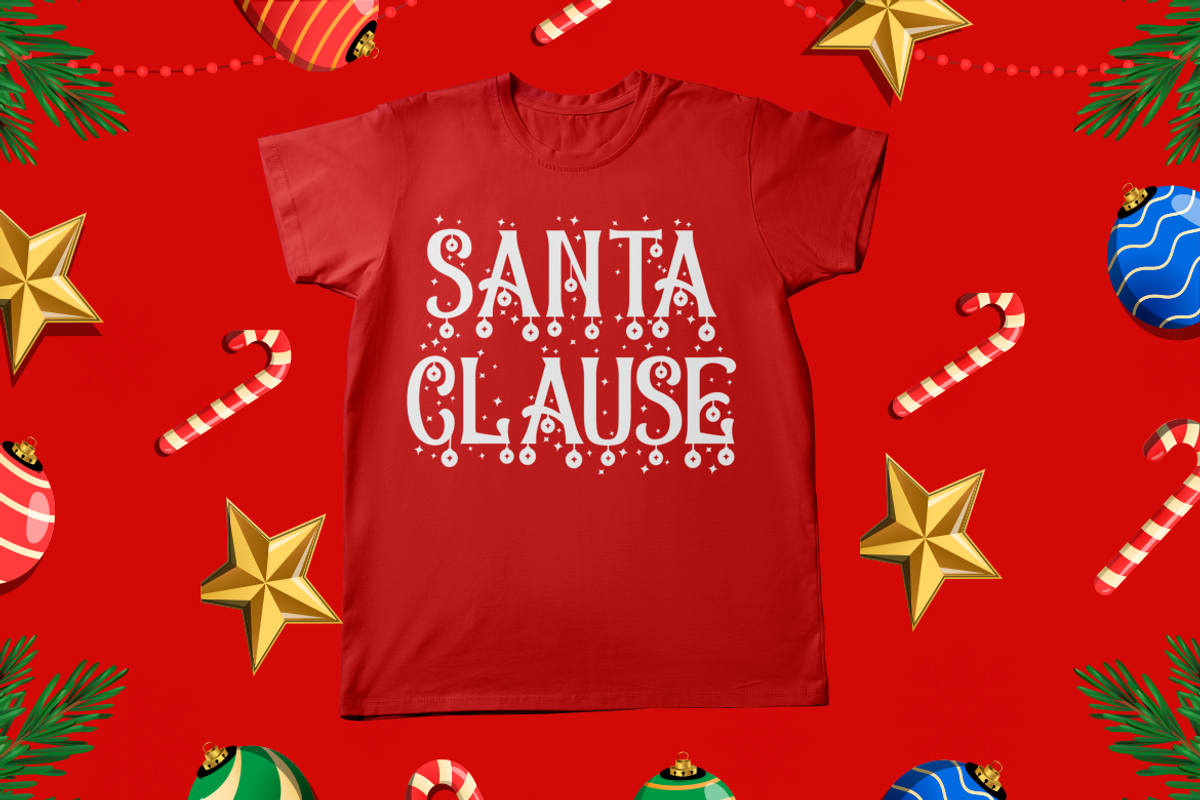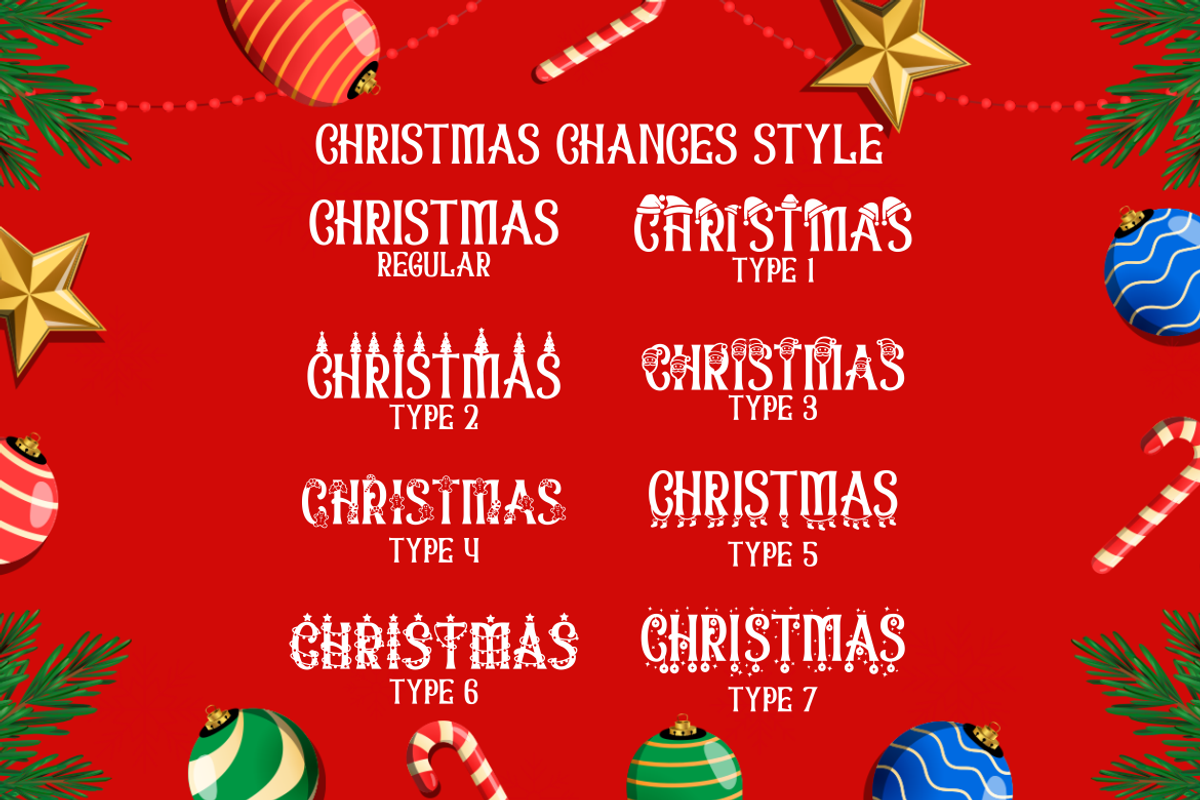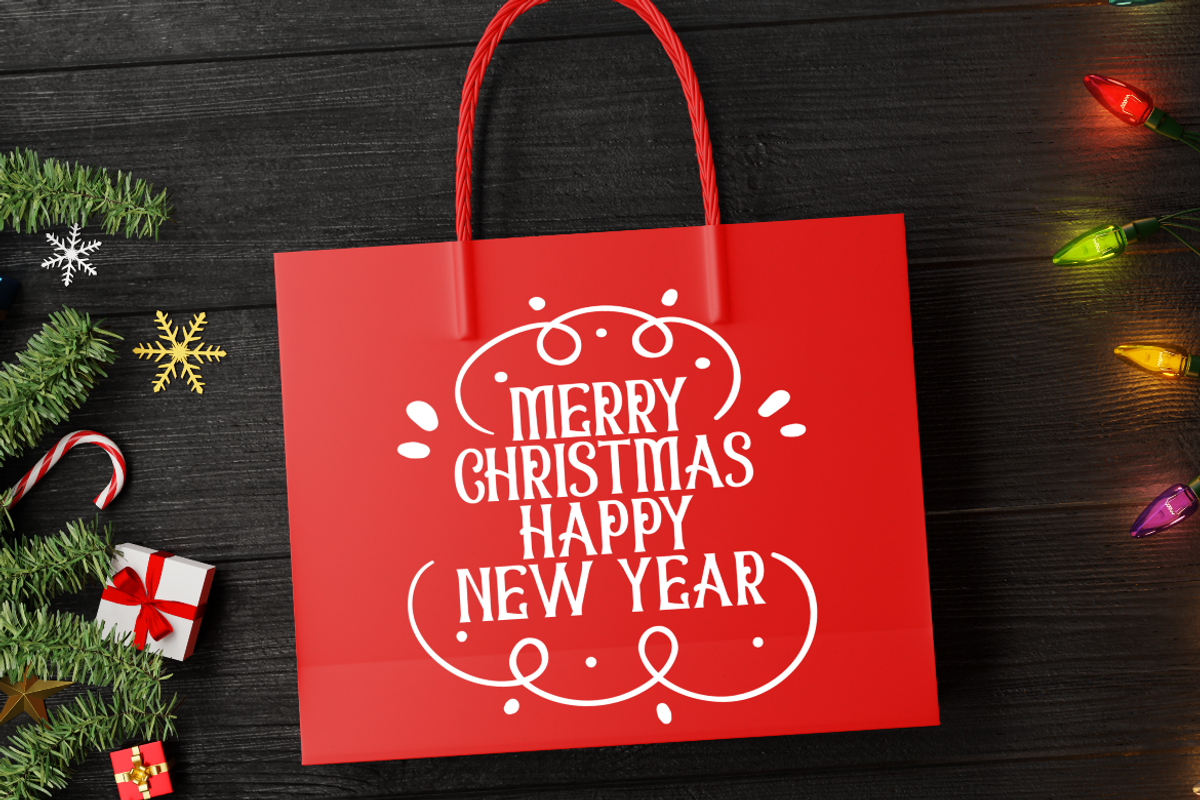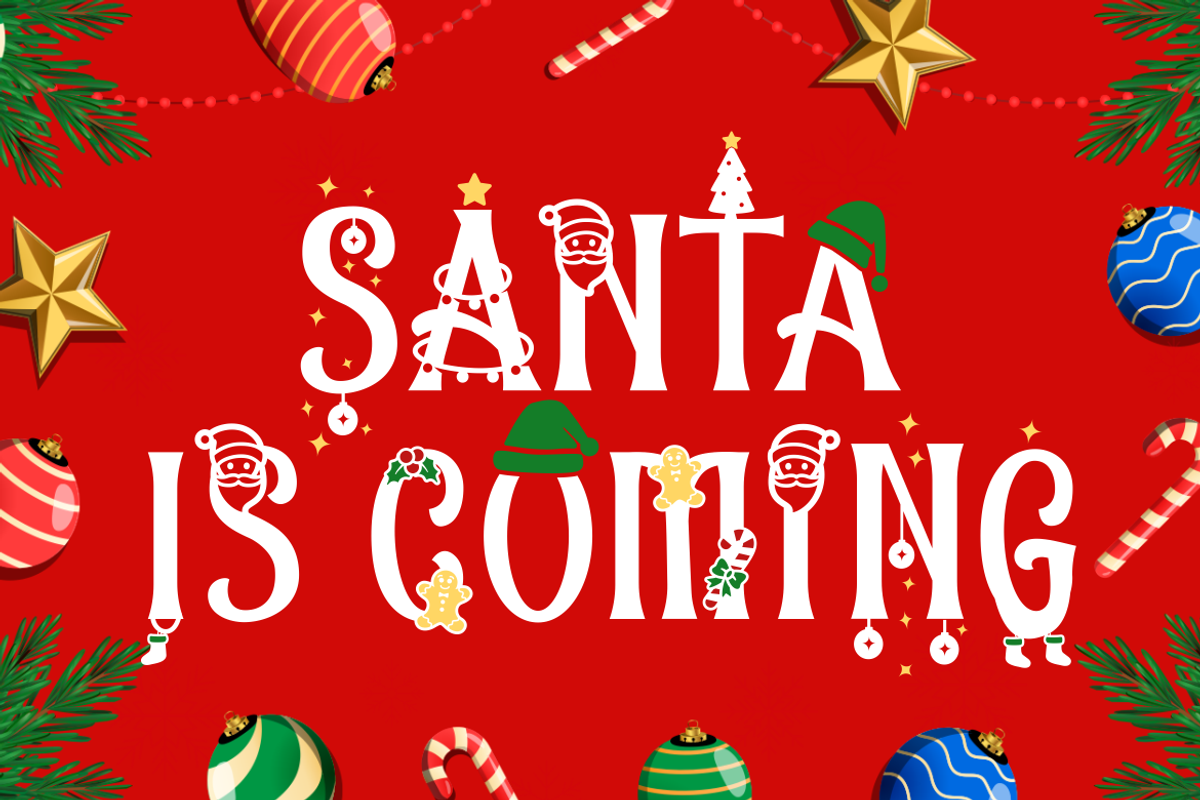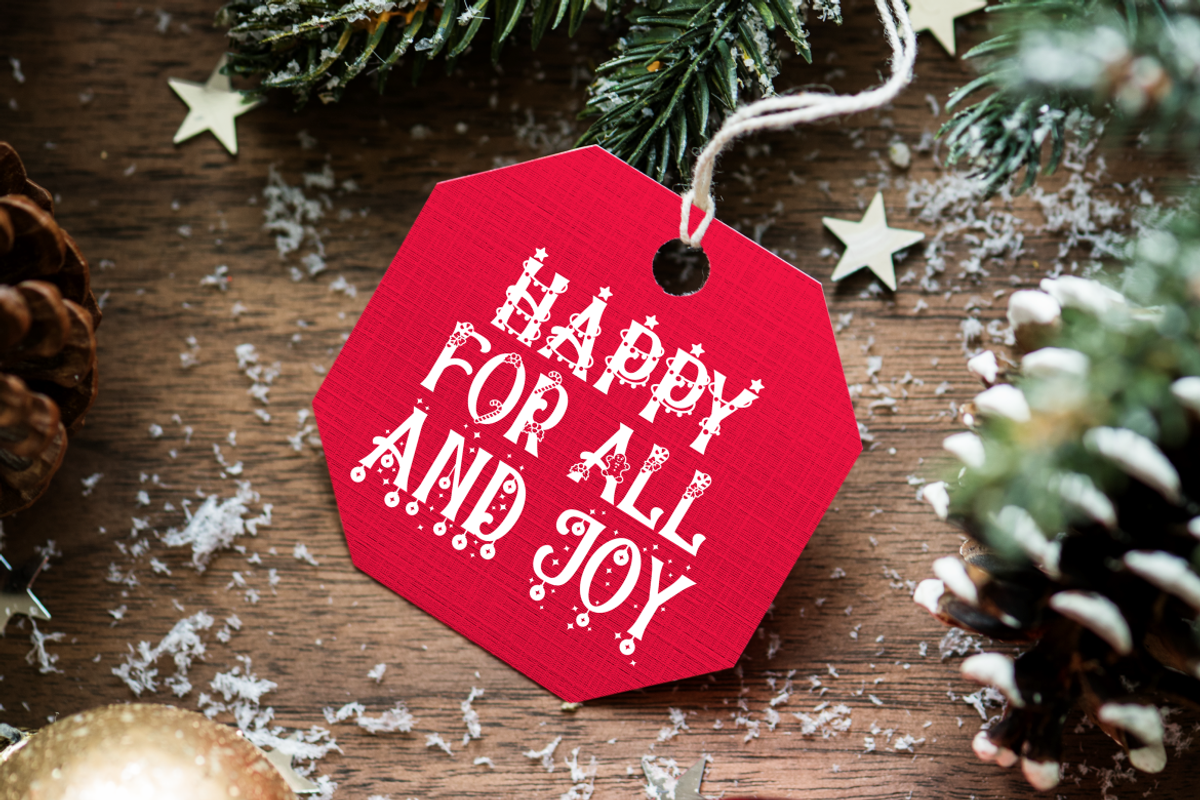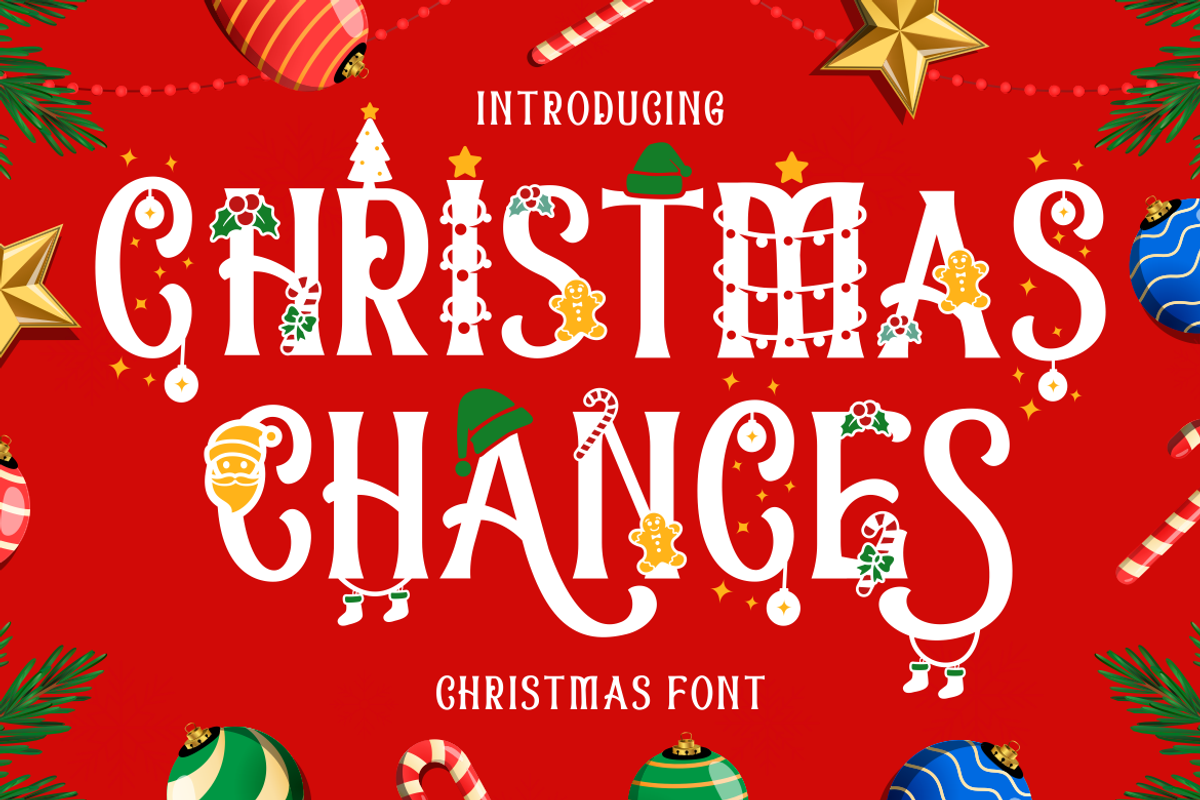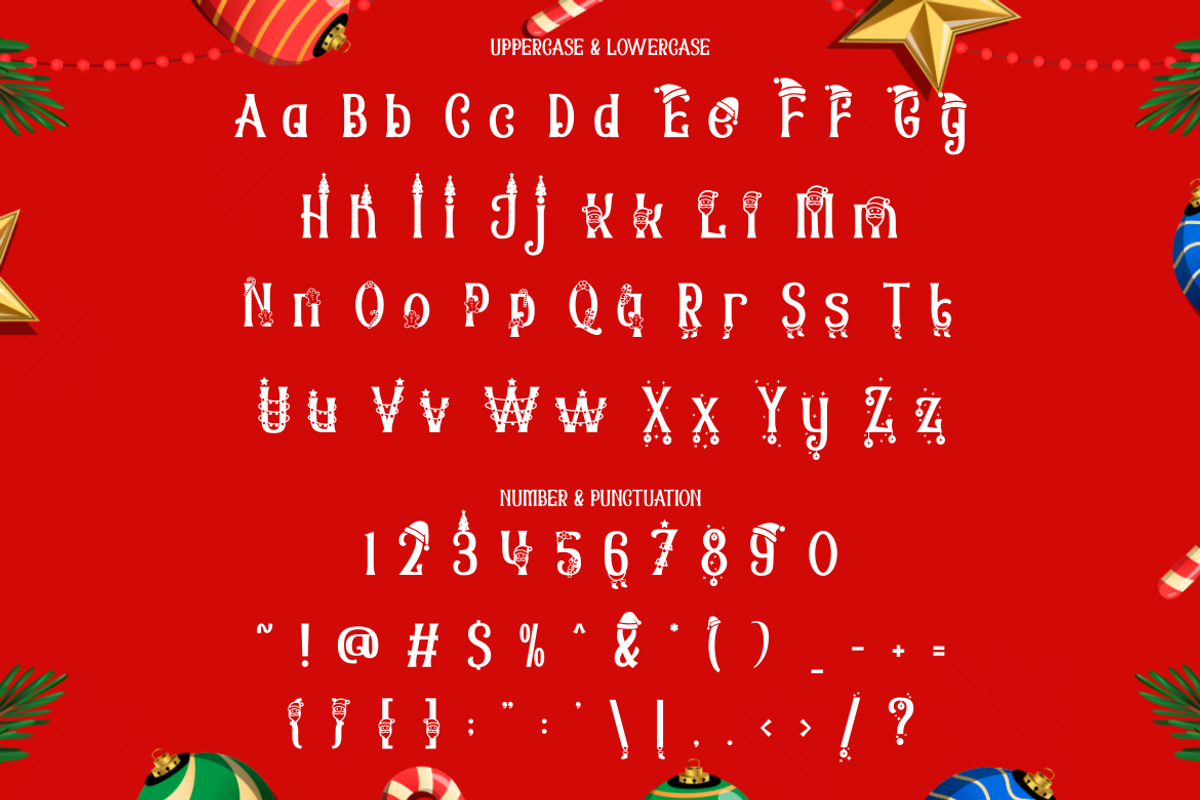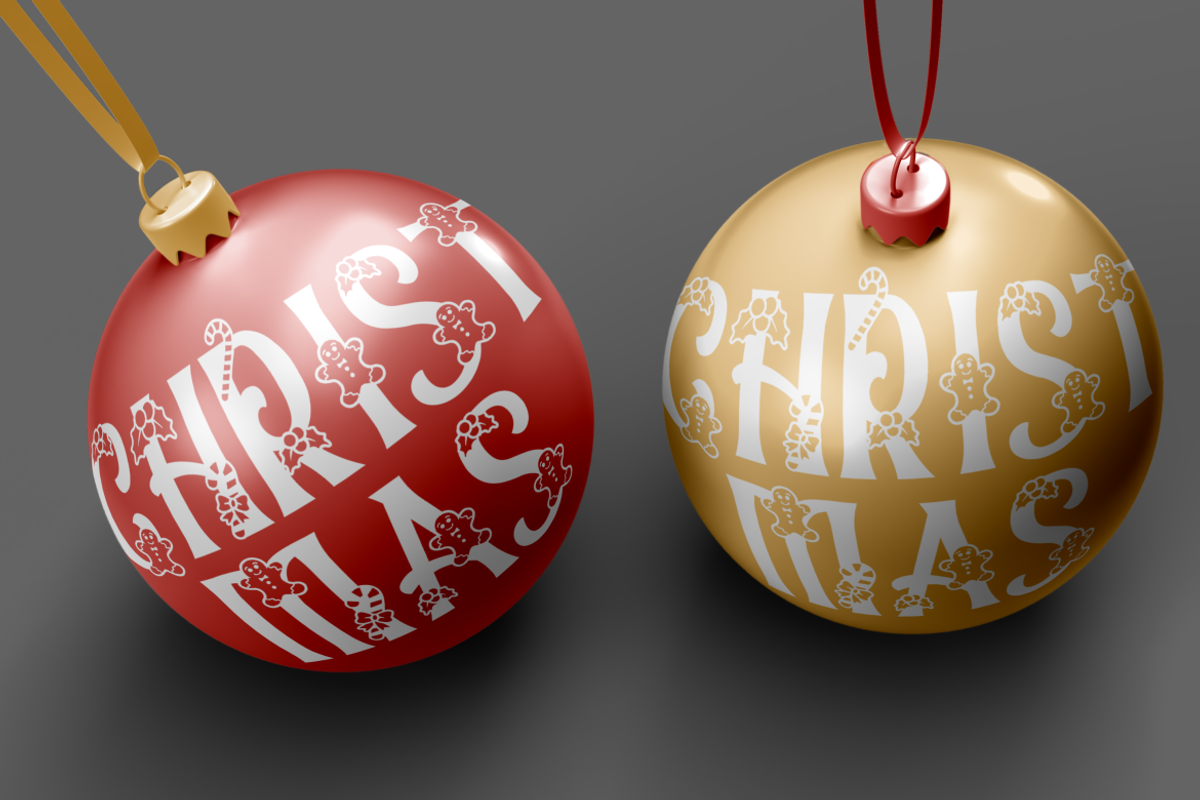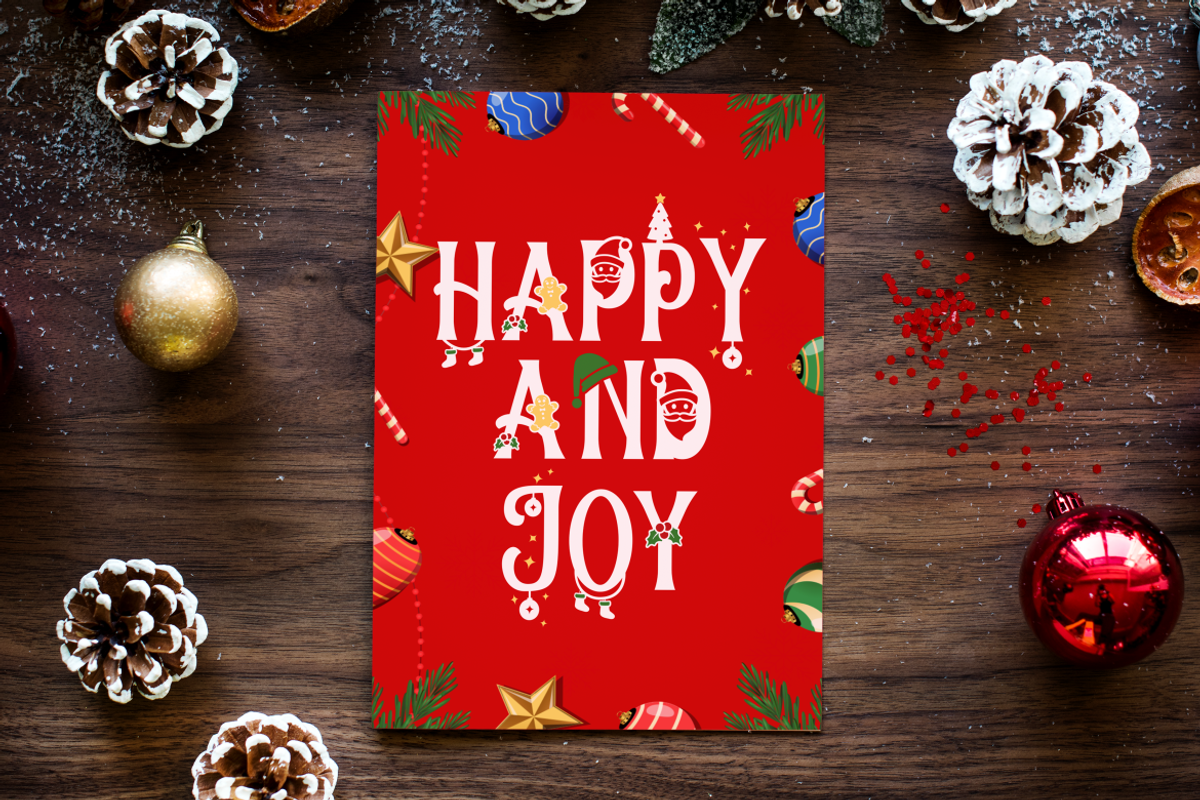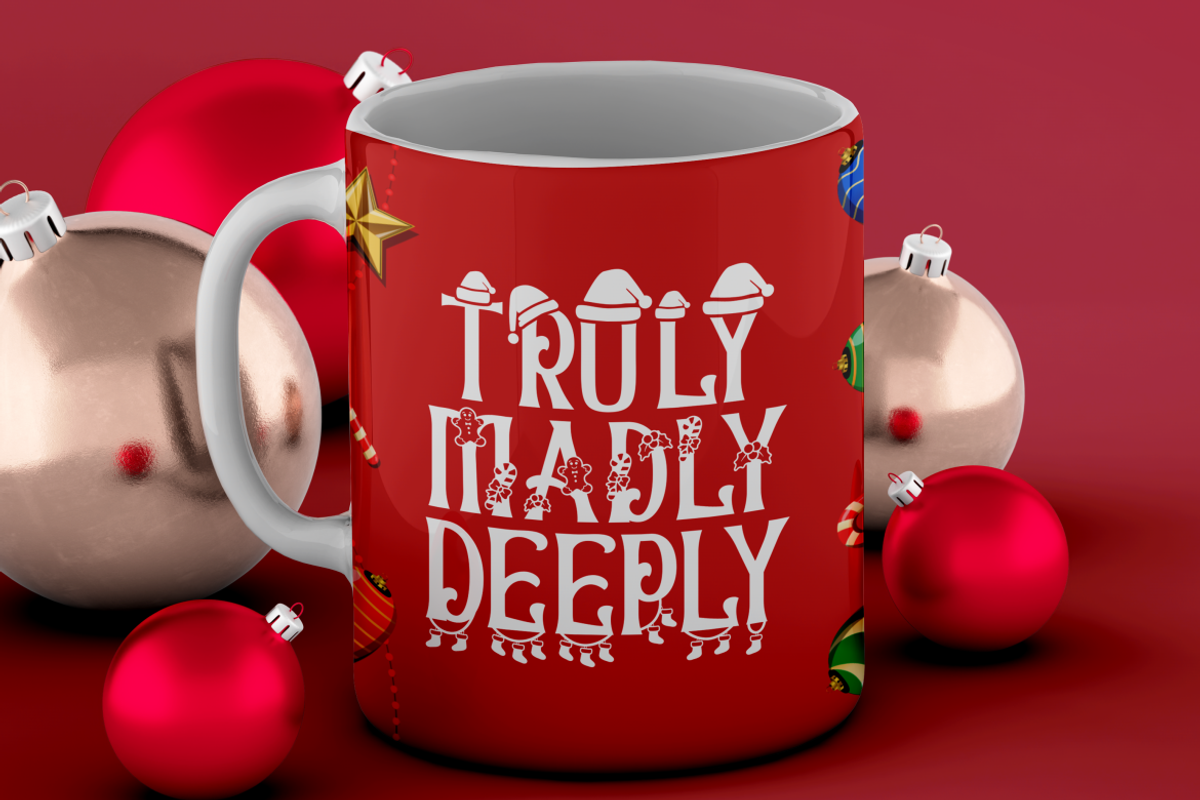
Christmas Chances - Christmas Font
Christmas Chances - Christmas Font is a captivating display typeface designed to evoke the festive spirit of Christmas. With its elegant serif letterforms, this font adds a touch of sophistication to your holiday-themed designs. It comes with ligatures and six unique alternative decorations, including Santa hats, Christmas trees, Santa Claus, festive ornaments, Christmas cakes, and more. These decorative elements allow you to infuse the holiday spirit into your projects, making it perfect for various Christmas-themed designs.
This font is specifically crafted for Christmas-themed projects, making it a versatile choice for a wide range of applications, including t-shirt designs, invitation cards, greeting cards, mugs, gift designs, Christmas ornaments, and much more. Christmas Chances - Christmas Font is your go-to choice for spreading holiday cheer and warmth in your creative endeavors.